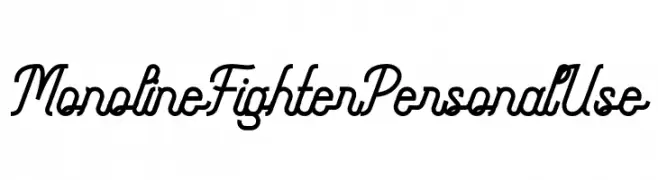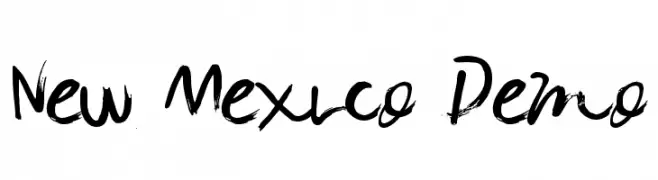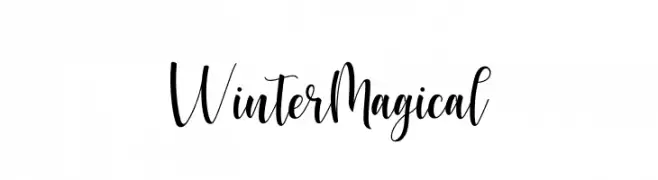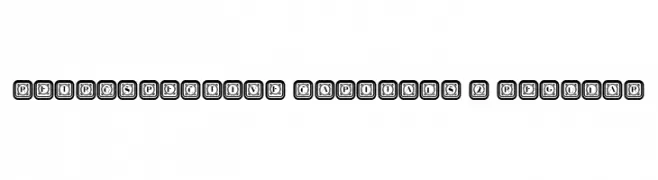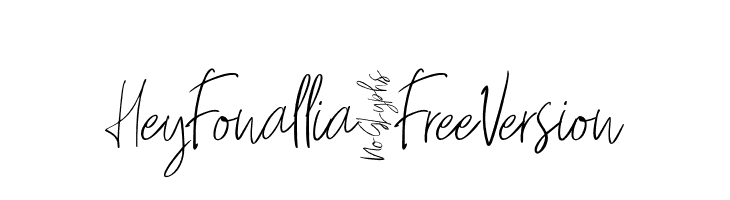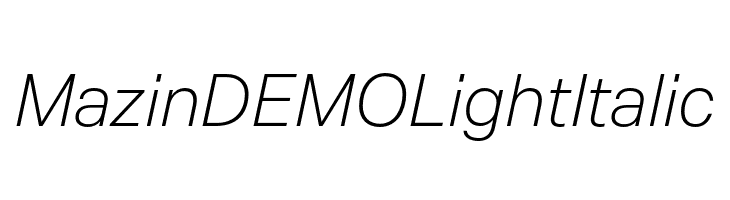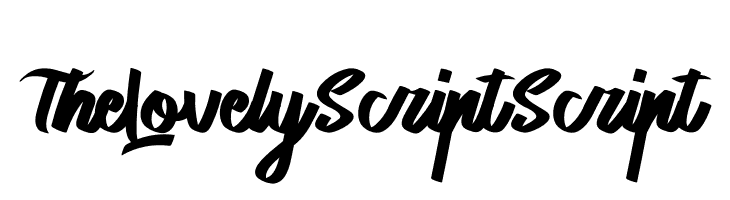
A bold, italicized font with a modern and dynamic style.
A monoline script font with a bold, slanted style and smooth, flowing connections.
A classic, elegant script font with flowing, cursive letterforms.
A playful, handwritten-style italic font with smooth, rounded strokes.
A dynamic, brushstroke-style font with an artistic and expressive flair.
A whimsical, elegant cursive font with flowing, artistic strokes.
A modern, elegant script font with flowing, cursive characters.
A monospaced typewriter-style font with a classic, vintage appeal.
A bold, decorative font with characters enclosed in square frames, offering a retro aesthetic.